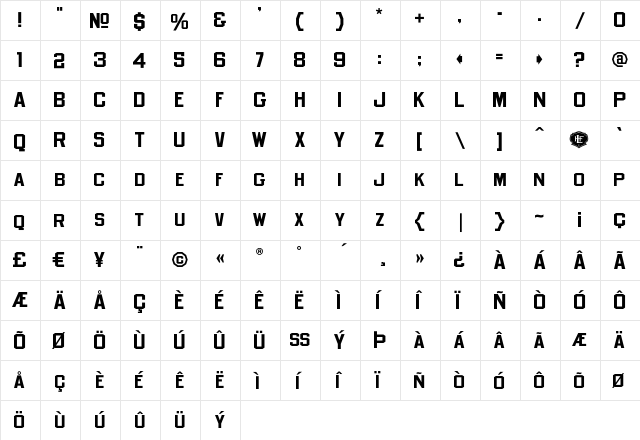
LHFOldBlockRegBold Regular
Design Context for LHFOldBlockRegBold Typeface
LHFOldBlockRegBold offers clean, dependable letterforms without strong stylistic allegiance, making it a practical choice for designers who need flexibility. The heavy weight commands attention and anchors typographic hierarchies.